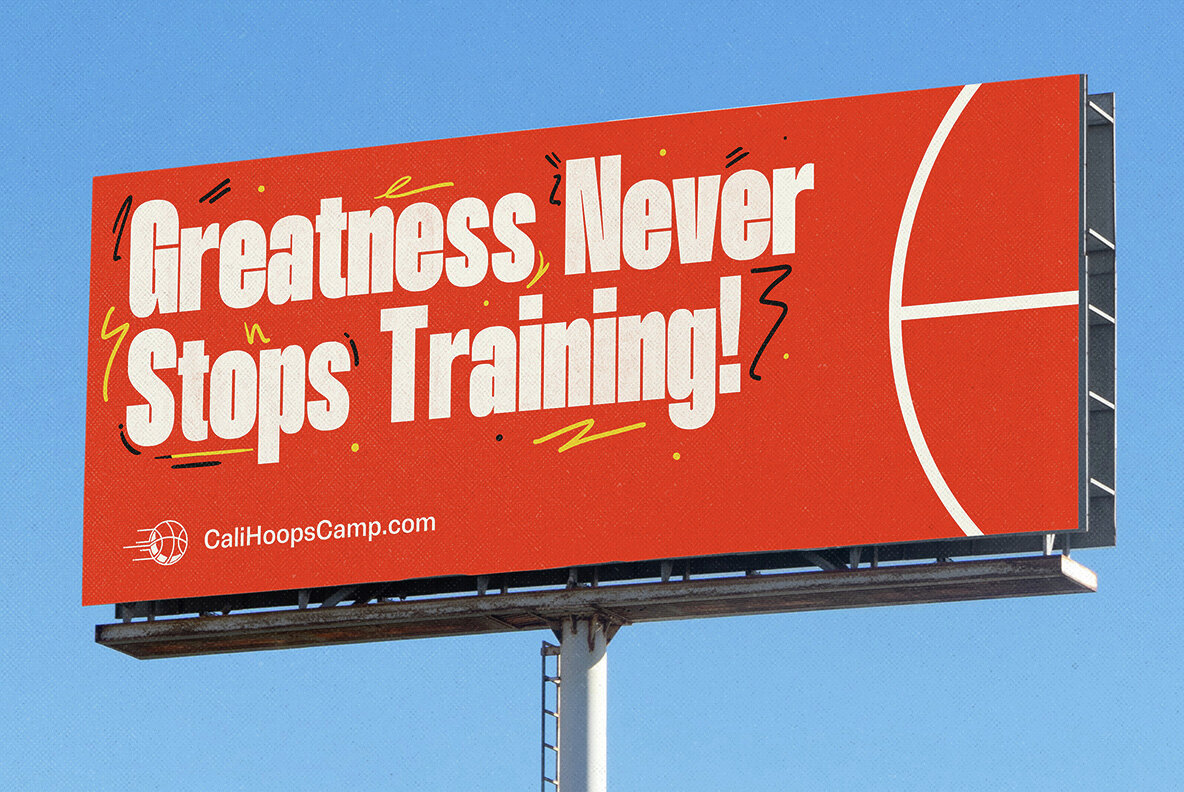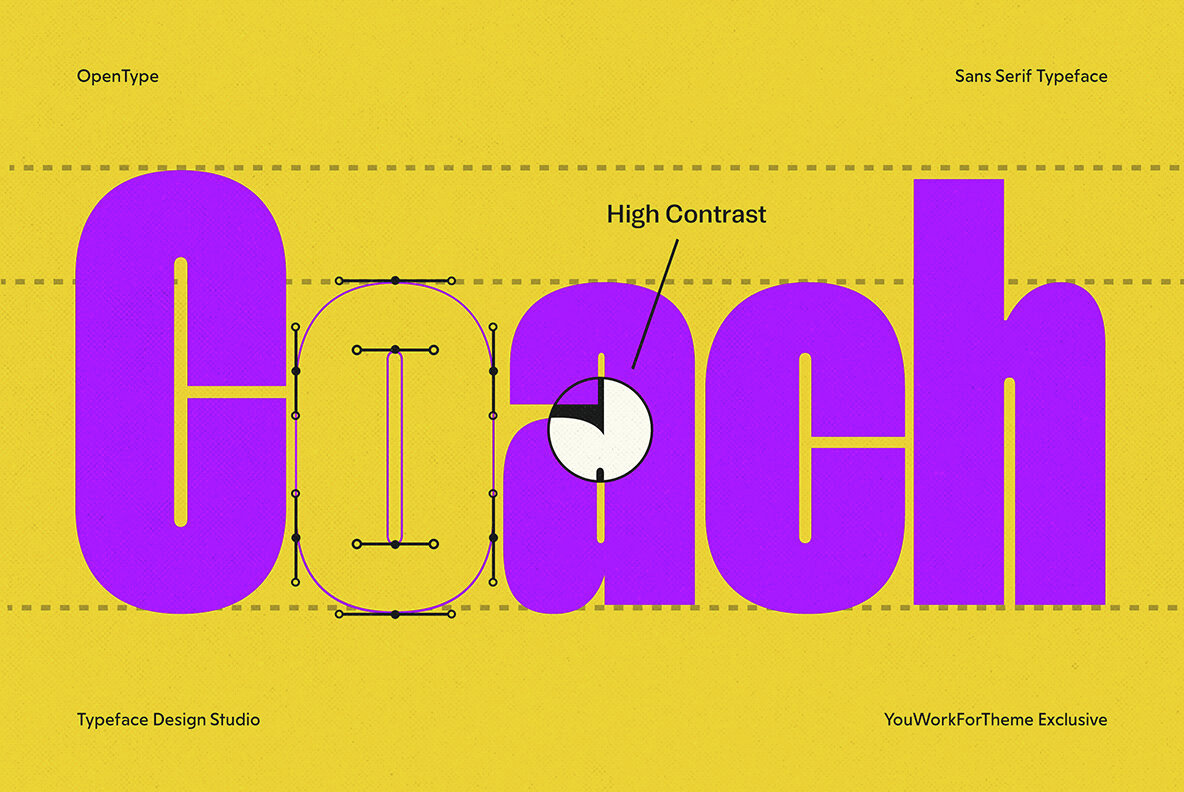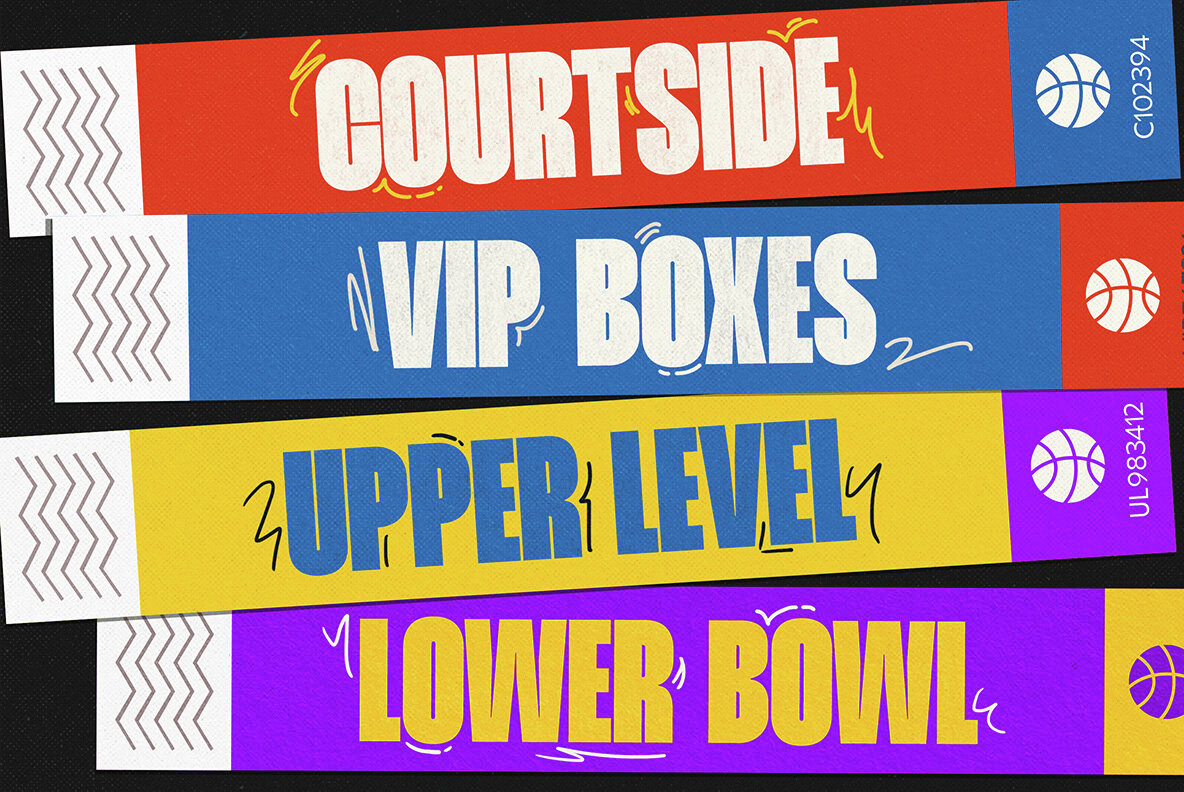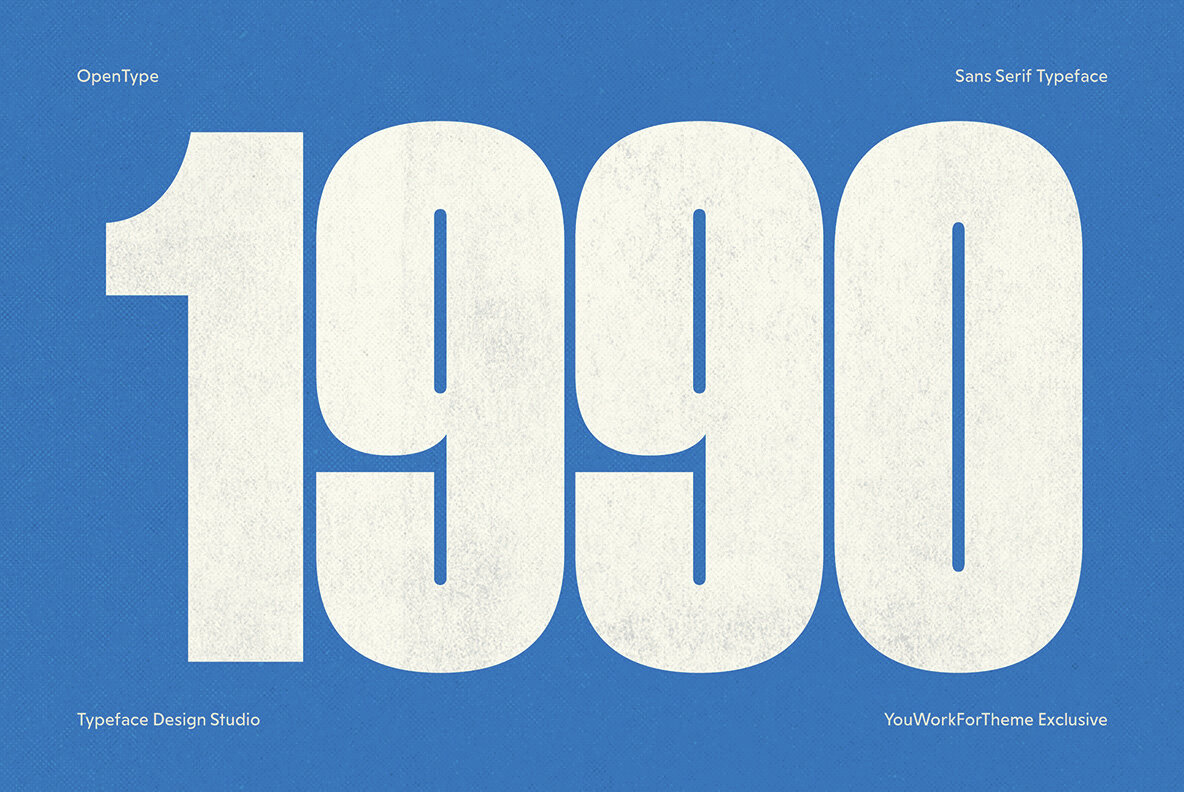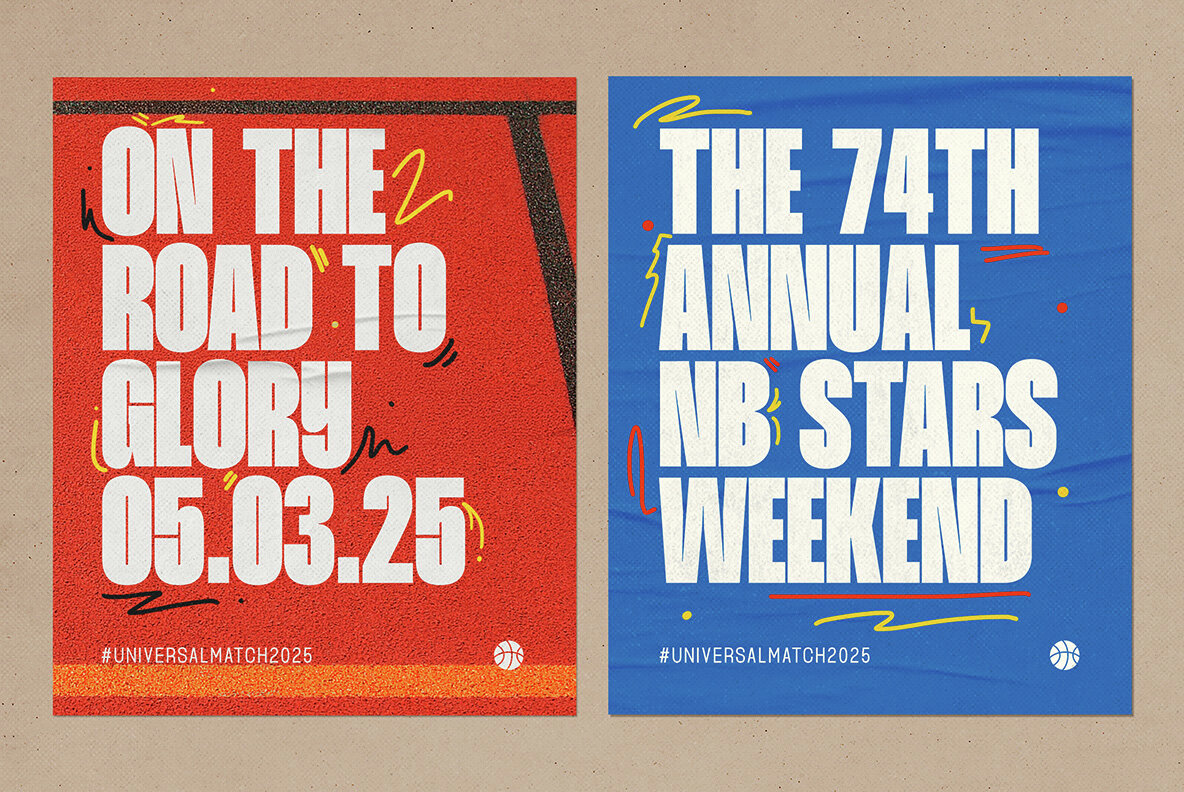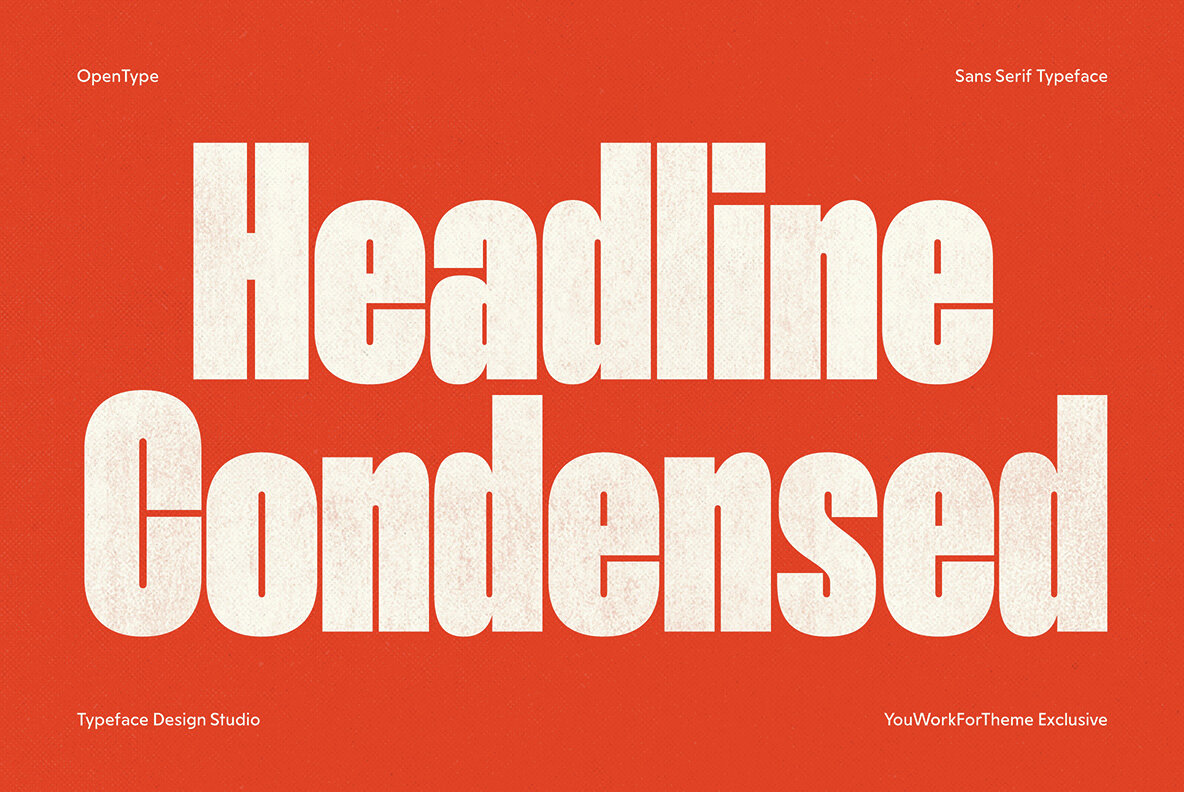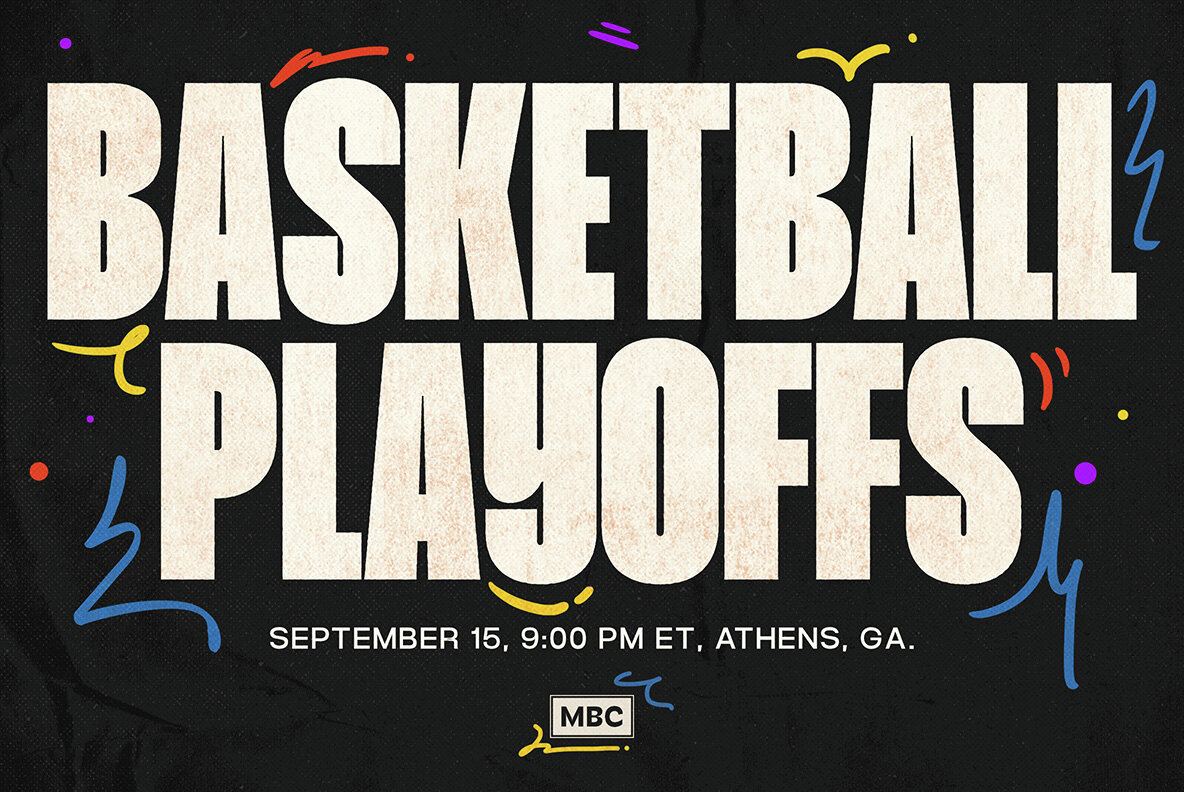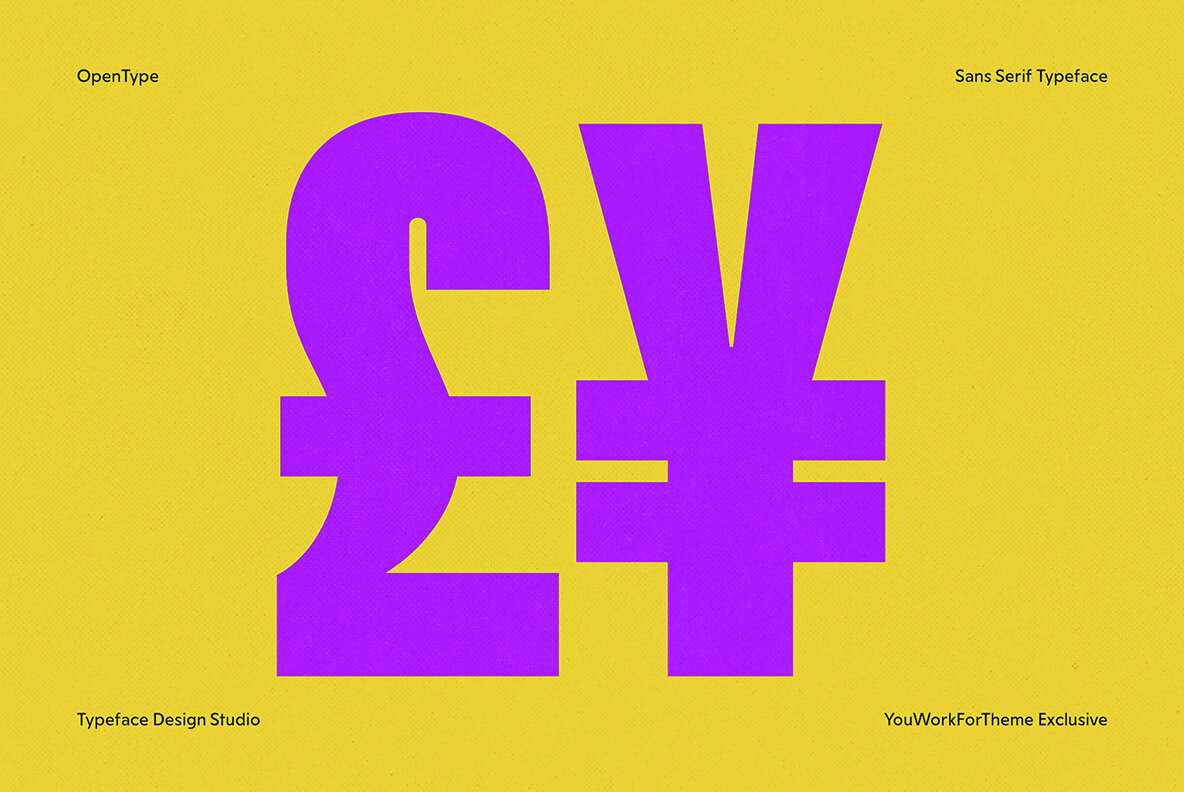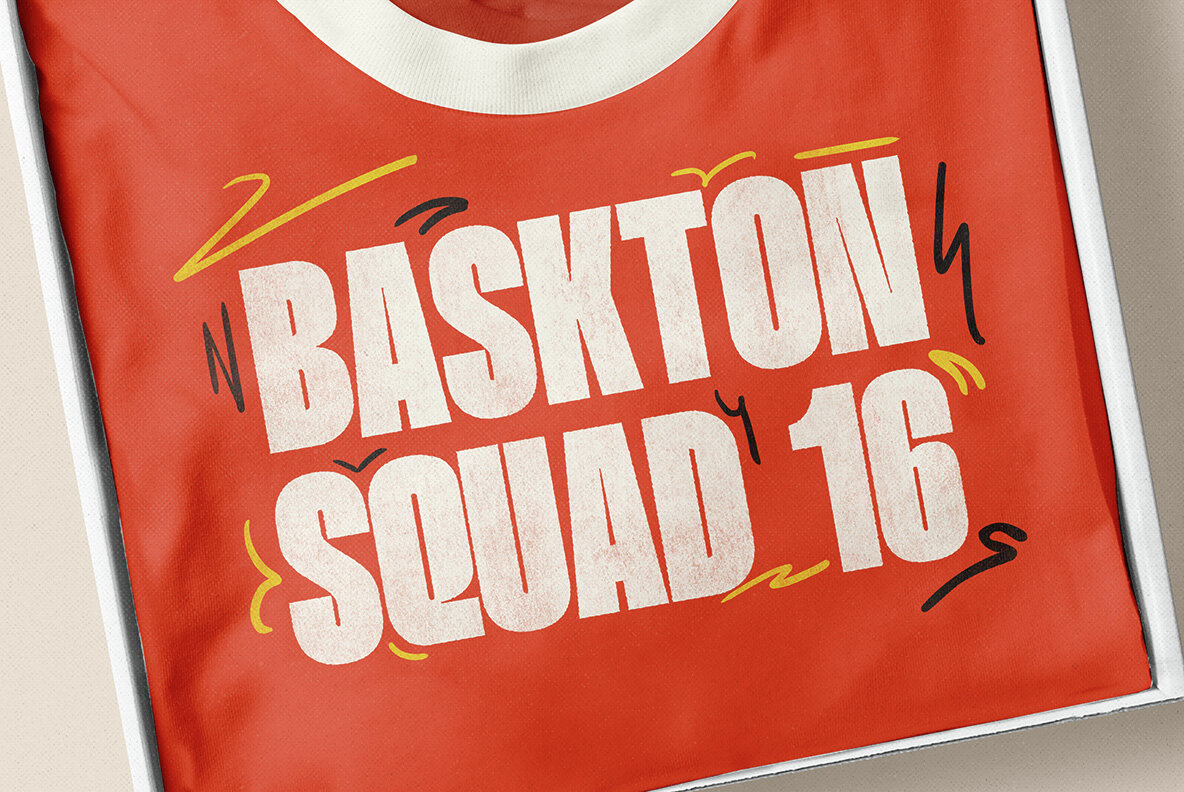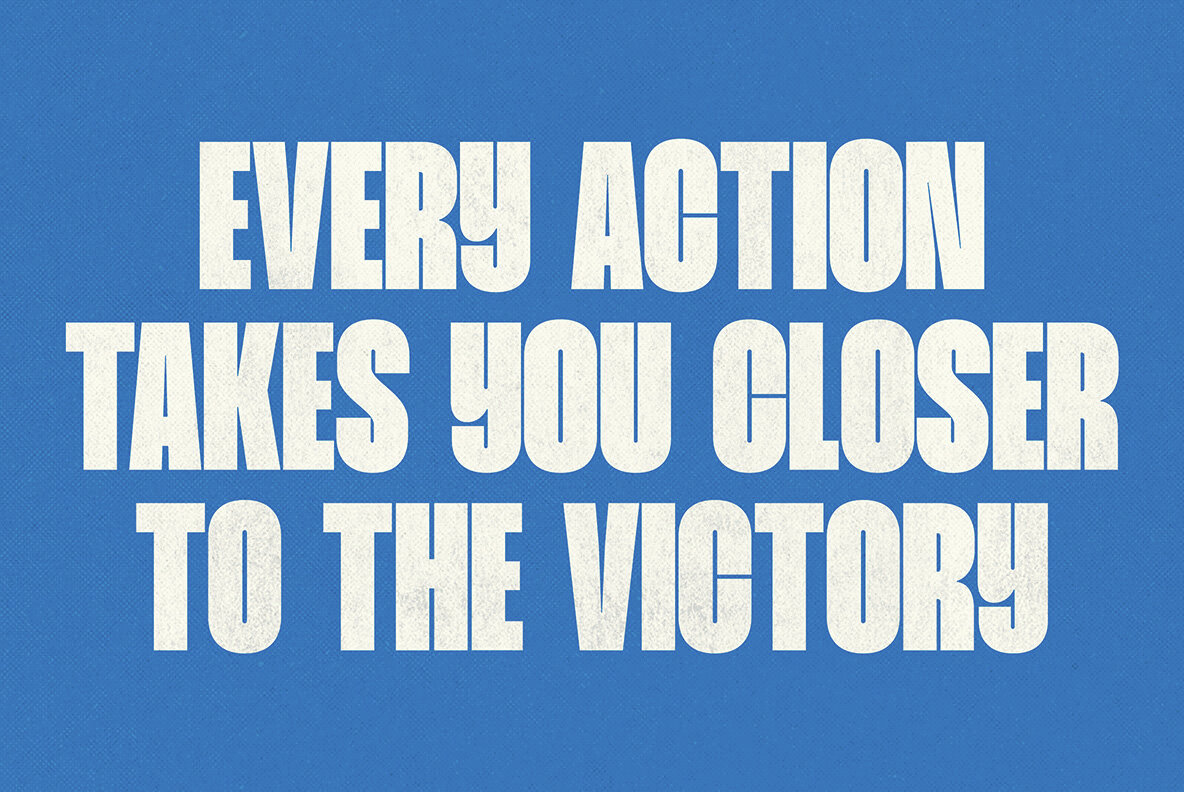
Higer Font
Higer Black
Higer, a distinctive typeface inspired by traditional design archives, lends a timeless yet vibrant dimension to creative endeavors. Whether for posters, user interfaces, magazines, logos, or apparel, its adaptable style offers a sophisticated solution for diverse projects at an affordable price point. The font comprises 381 glyphs, offering extensive creative avenues that meet various design requirements. Its inclusion of diacritics supports multilingual projects, accommodating over 100 languages, making it well-suited for global applications. Additional products used for slideshow images:Higer: A Classic Headline Font Design